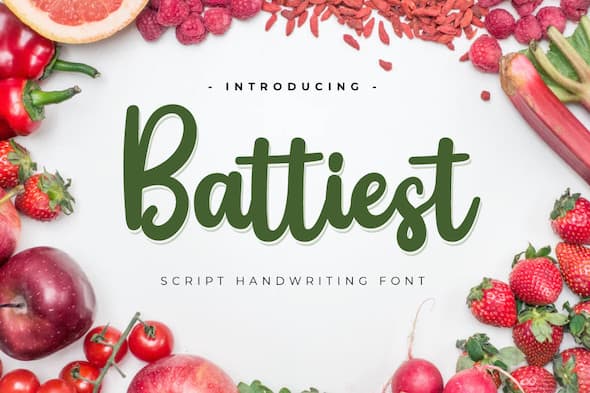
Battiest Font
Battiest Script Font
Battiest Script Font is our latest modern handwriting script font which has strong characteristics in its curves so that it makes it more beautiful and elegant in its use and also has its own charm when viewed
Battiest Script Font is designed with a natural touch of handwriting which is refined to create a portion and composition that suits your needs. So this font is suitable for craft, children’s writing, adventure posters, food banner titles, wedding invitations, product packaging logos, quotes, social media page covers, furniture banner headlines, book covers, and much more.